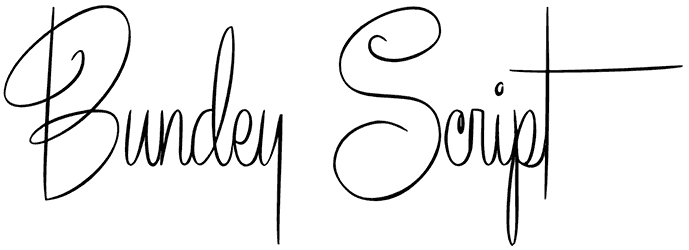
Bundey Script Font
As long as you set delicate hand lettering on your texts, the final draft of your project will be elegant and mesmerizing, just like what the Bundey Script font will do. This charming handwritten font conveys a chic and noble mood, which is going to make your layout stand out.
There is no offer for numbers, but with four versions and two styles in two weights, this postcard font will be a perfect choice for a Christmas invitation card.